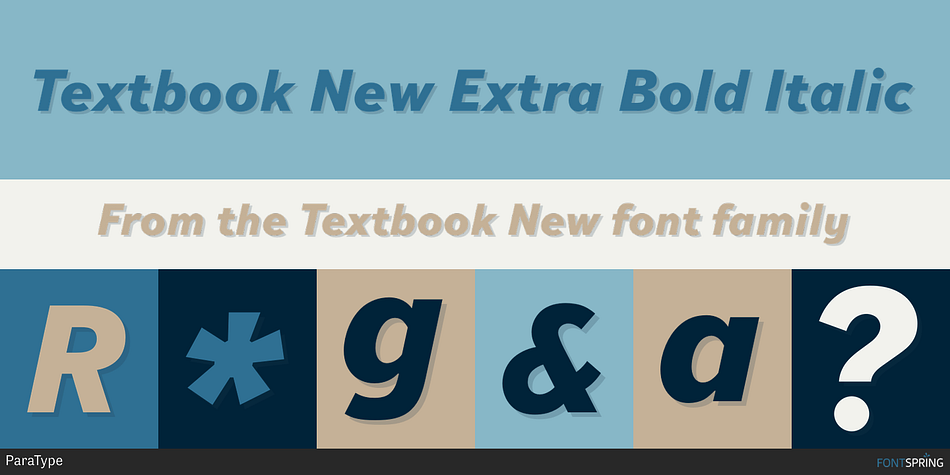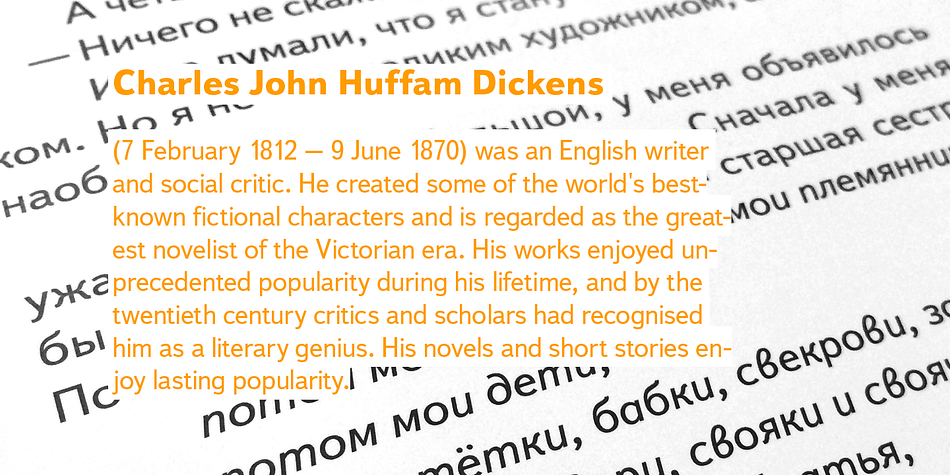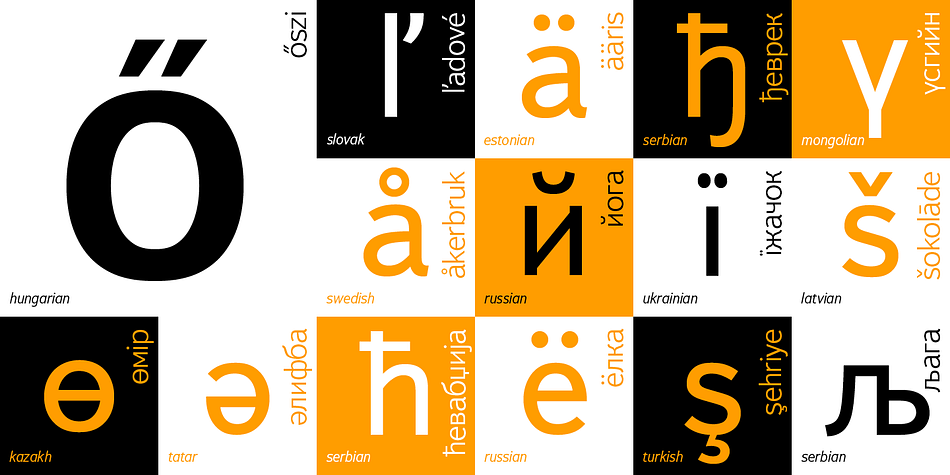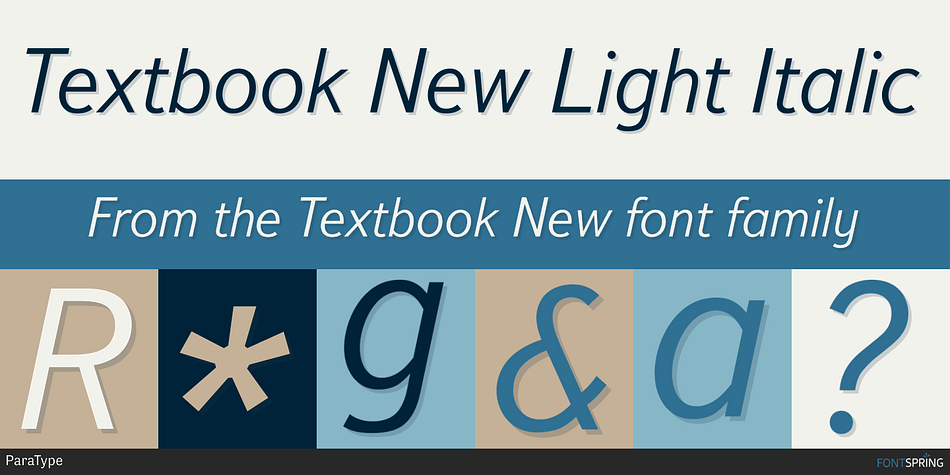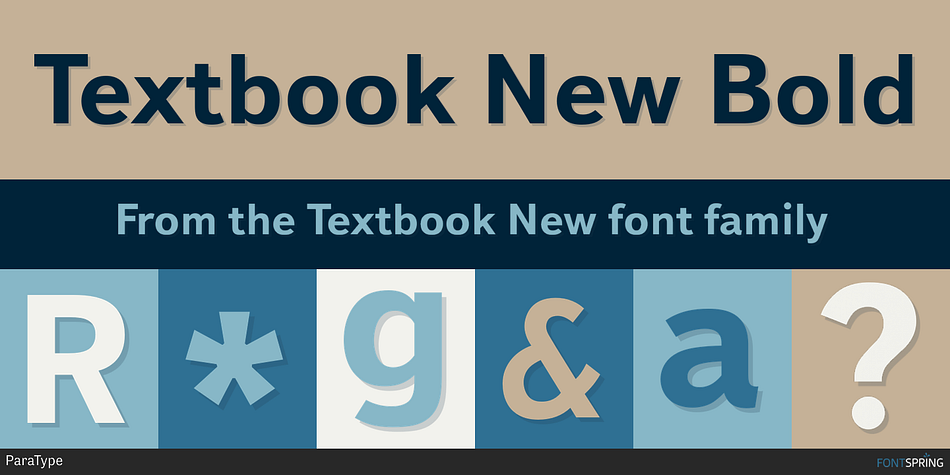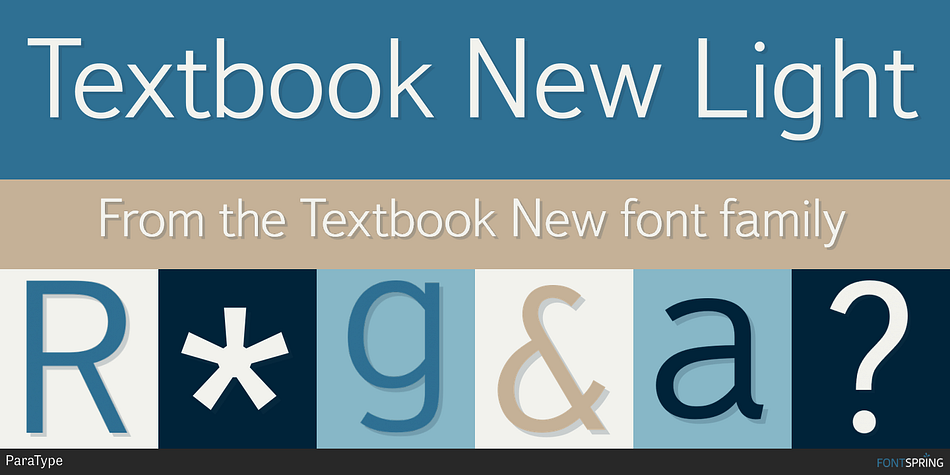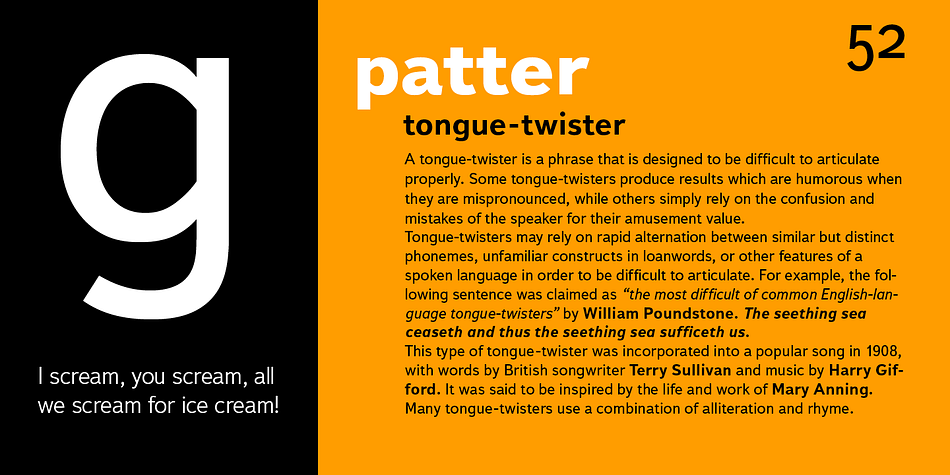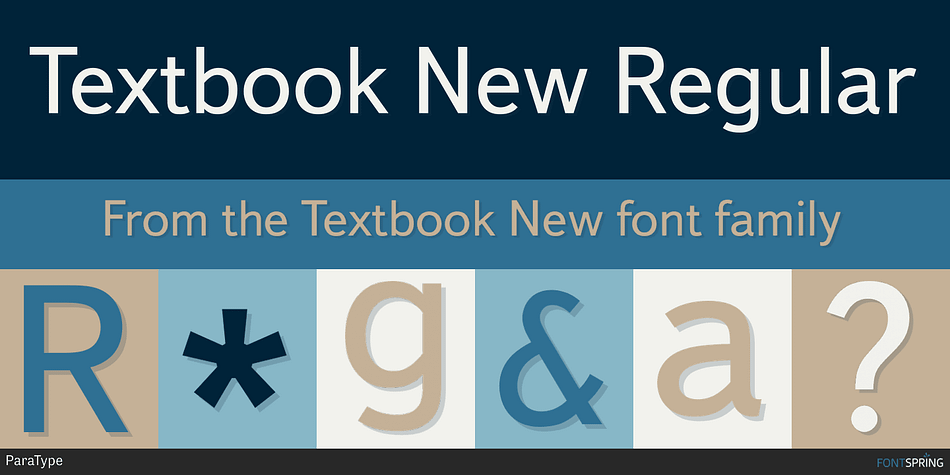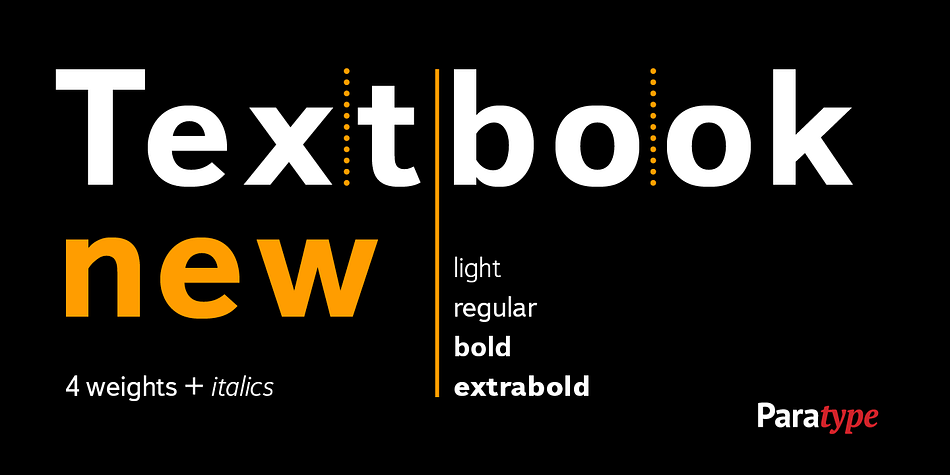
Designed by Isabella Chaeva, Yelena Tzaregorodtseva and Emma Zakharova, Textbook New is a sans serif font family. This typeface has eight styles and was published by ParaType.
Textbook New was designed for ParaType in 2007 by Isabella Chaeva. The type is based on Bukvarnaya (TextBook) photocomposing version designed in 1987 by Emma Zakharova. The initial Bukvarnaya for metal composition was created at Polygraphmash in 1958 by Elena Tsaregorodtseva.
It was developed for primers and the first level school textbooks. An early sans serif (‘Grotesque’) with half-closed static letterforms. It is for use in book and magazine typography, advertising and headlines. Also may be useful as screen font.